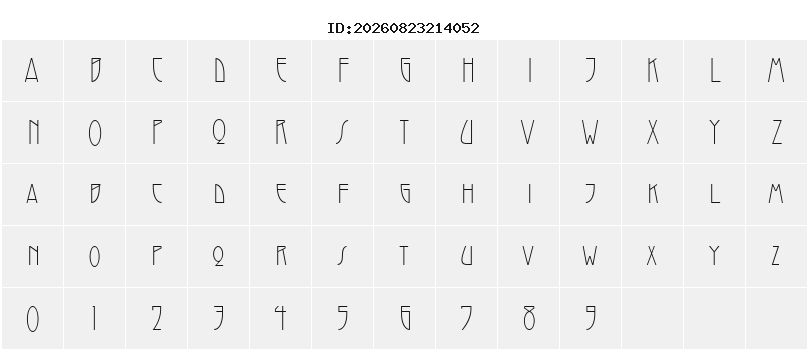
• Font Name: Santini Light
• Full Font Name: Santini Light
• PostScript Name: SantiniLight
About Santini Light.ttf
Santini Light.ttf is a modern, elegant sans-serif font designed for ultimate readability and visual harmony. Perfect for branding, headlines, web design, and print materials.